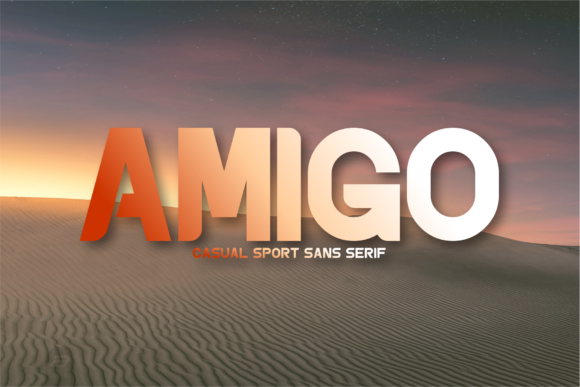
The Ultimate Design Game-Changer: Amigo Font
I’ll never forget the time I was working on a project for a client who needed a bold, eye-catching font to make their brand stand out. I scoured the internet, tried countless fonts, but nothing seemed quite right. That was until I stumbled upon Amigo Font. This bold and thick lettered display font has been a game-changer for my design work, and I’m excited to share its awesomeness with you! 😊
• 💥 **Impactful**: Amigo Font makes a statement. Its bold and thick letters demand attention, making it perfect for headings, titles, and emphasis.
• ✅ **Versatile**: Whether you’re working on a modern brand identity, a playful craft project, or a bold advertising campaign, Amigo Font adapts seamlessly.
• 🎨 **Highly Legible**: Even at smaller sizes, Amigo Font remains clear and easy to read, making it a great choice for body text or captions.
• 🌈 **Customizable**: With OpenType features and glyphs, you can experiment with different styles and alternates to make your text truly unique.
• ⚠️ **Limited use for body text**: While Amigo Font is legible, its bold nature makes it less suitable for long blocks of text. Save it for headings and emphasis.
• ⚠️ **May not be the best fit for delicate designs**: Amigo Font’s boldness can overpower more delicate design elements. Balance it with lighter fonts or whitespace.
The Story Behind Amigo Font
Amigo Font was designed with the goal of creating a bold, versatile font that could make a statement in any design. Inspired by modern sans-serif fonts and geometric shapes, Amigo Font’s creator aimed to craft a font that’s both highly legible and visually striking.
Q: Is Amigo Font suitable for body text?
A: While Amigo Font is legible, its bold nature makes it less suitable for long blocks of text. Save it for headings and emphasis.
Q: Does Amigo Font support OpenType features?
A: Yes, Amigo Font comes with OpenType features and glyphs, allowing for advanced typography and customization.